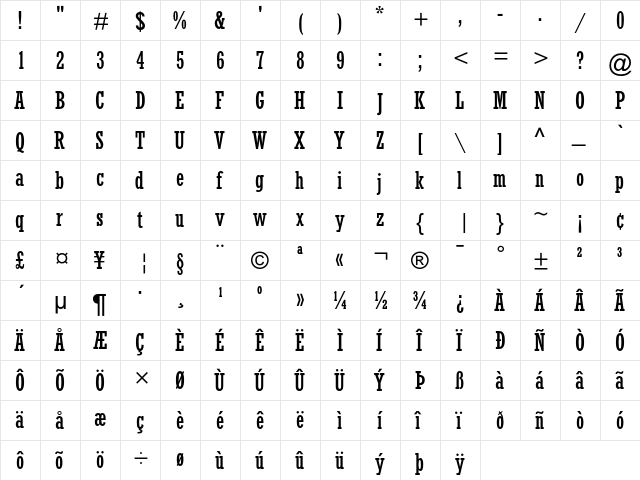
Rockwell Condensed
Design Context for Rockwell Typeface
Rockwell is a composed and adaptable typeface that performs quietly and consistently across a wide range of design contexts. Its narrow stance lets it pack a punch even in space-constrained designs.
Pro Tip: Pair Rockwell with a font of contrasting weight or personality to build a more expressive typographic hierarchy.